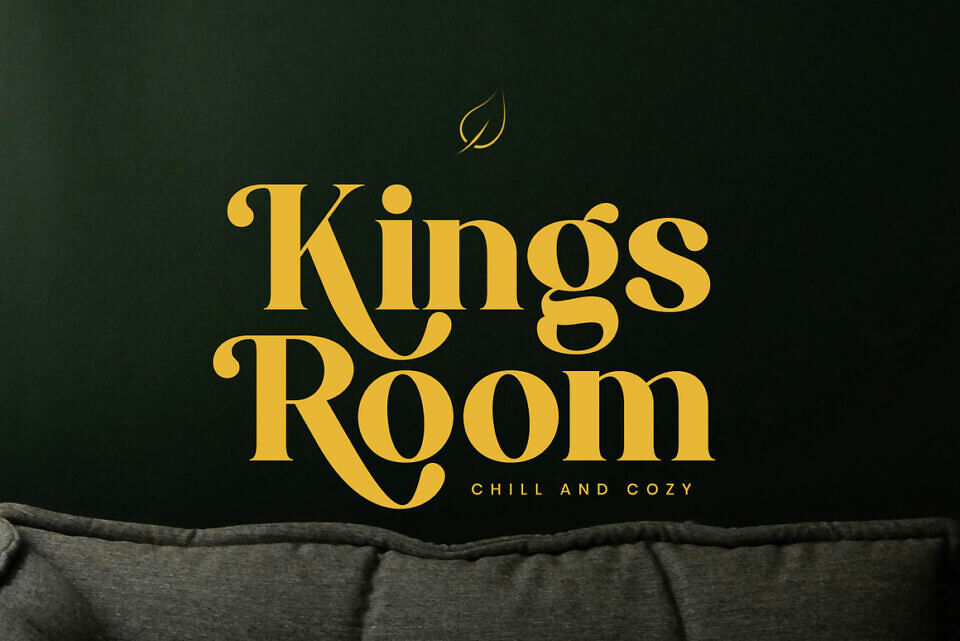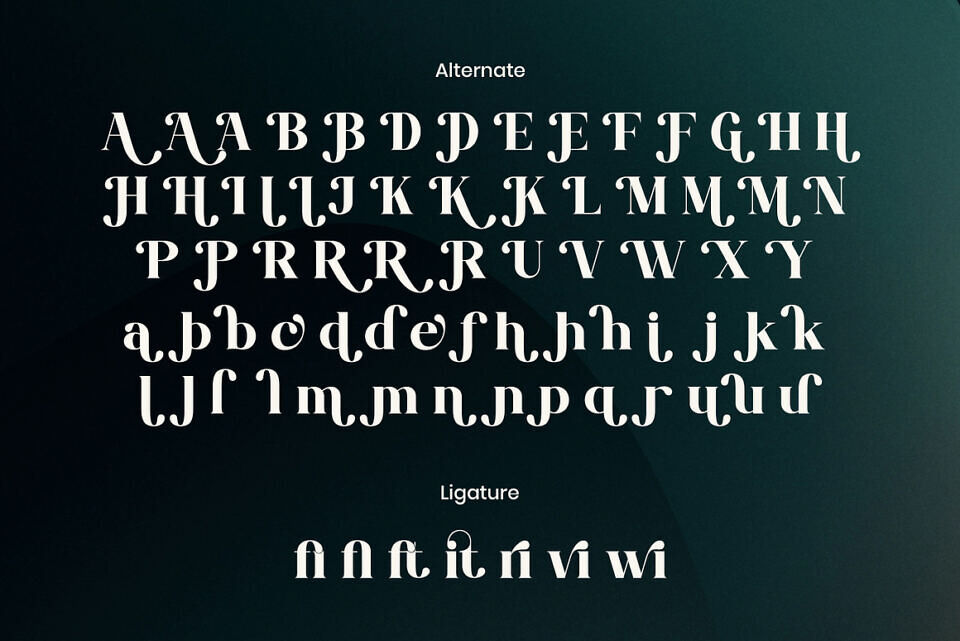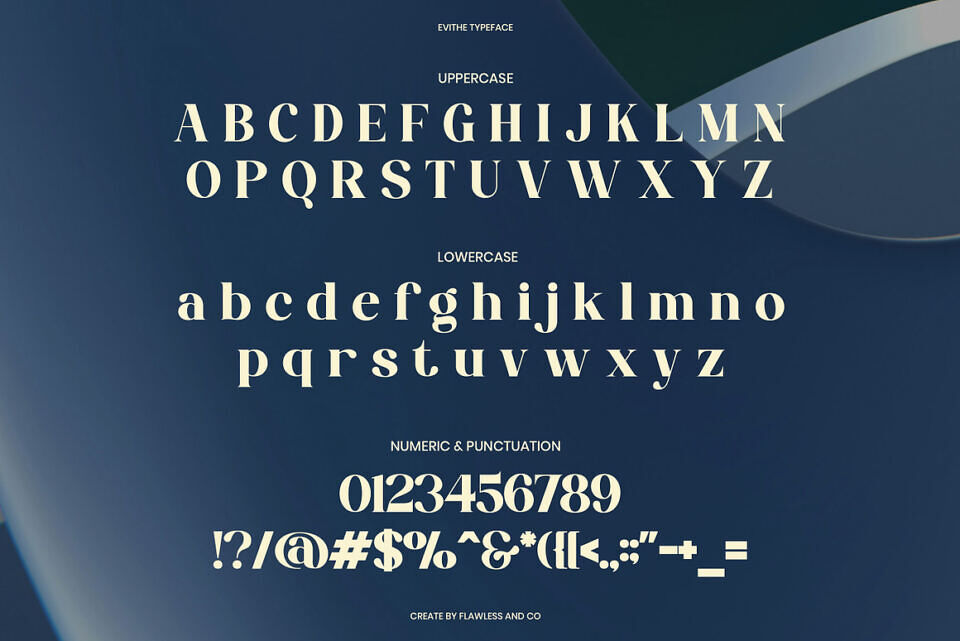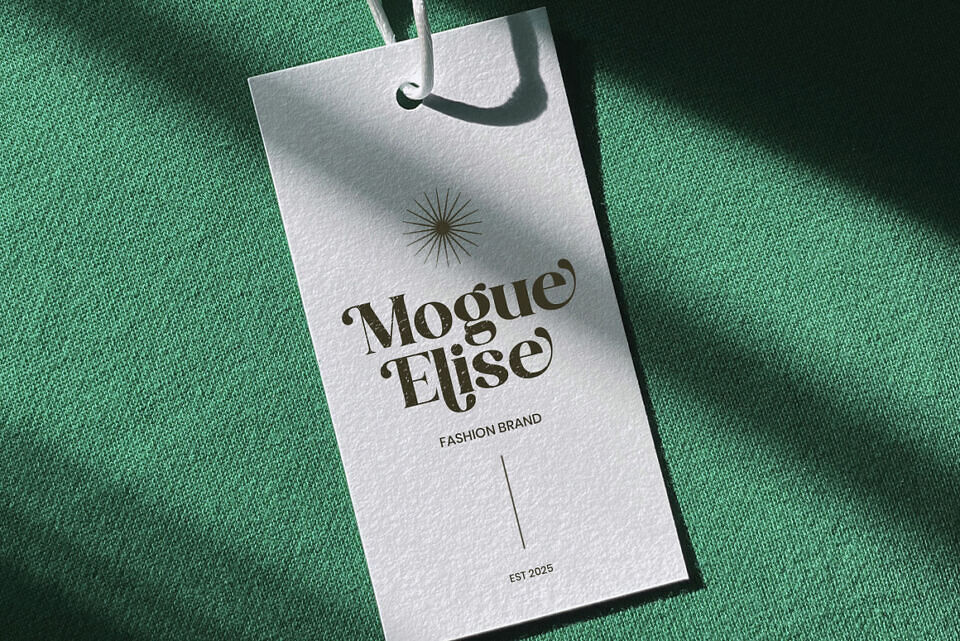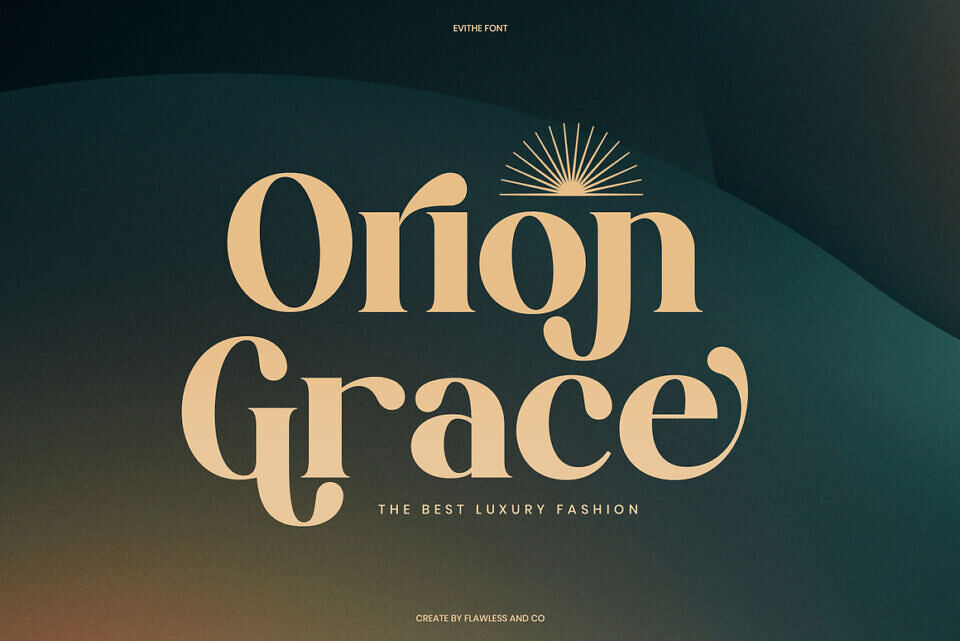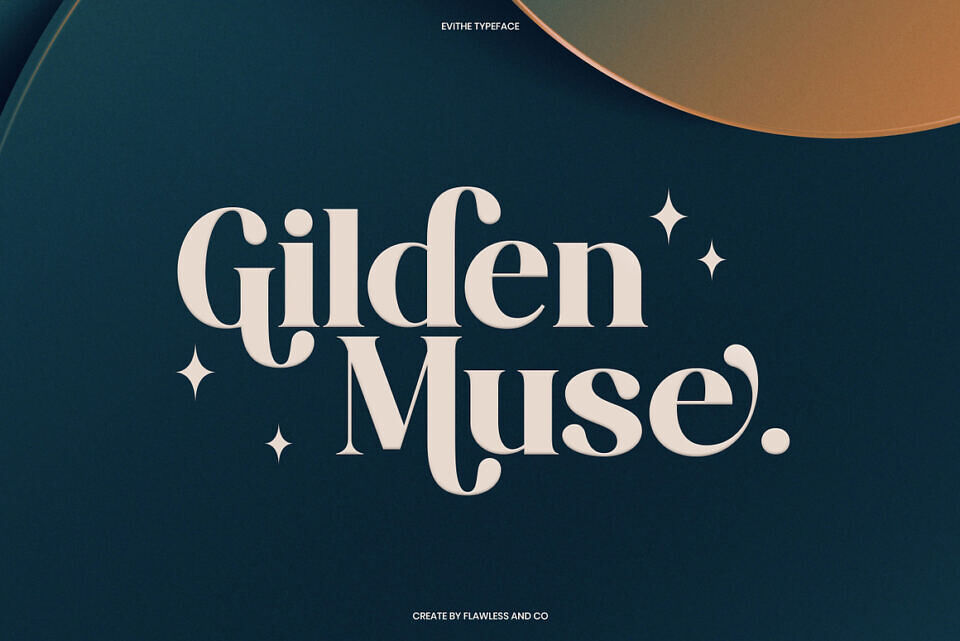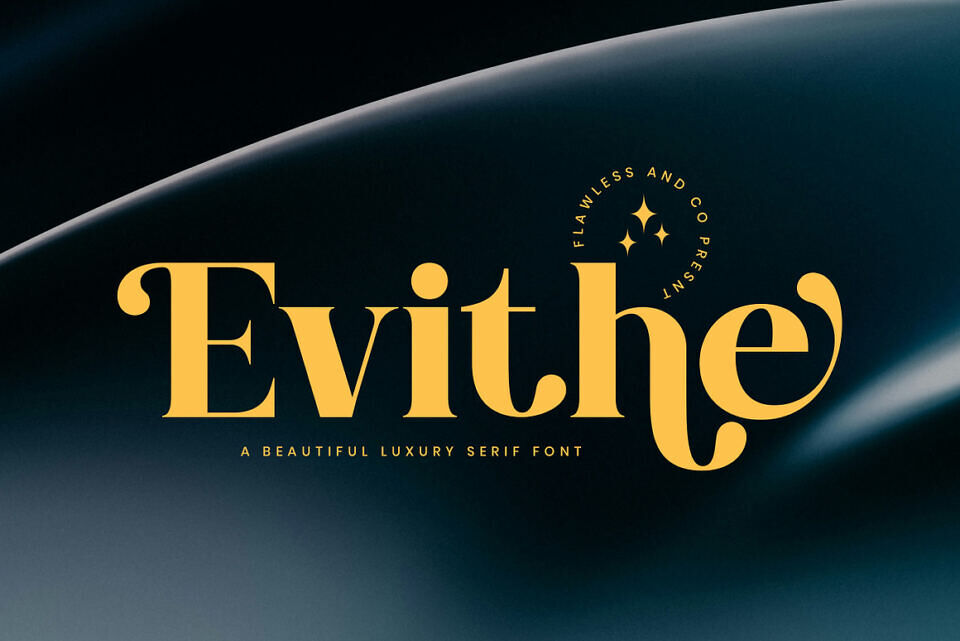
Evithe Font
Evithe is a stunning display serif font that embodies elegance and sophistication in every curve. Designed with luxurious flair and attention to detail, EVITHE blends timeless beauty with a modern sensibility, making it the perfect choice for those who seek to elevate their visual identity.
From upscale branding to high-end fashion editorials, EVITHE adds a touch of class and refinement that leaves a lasting impression. Its graceful serifs, stylish ligatures, and refined contrast make it an essential typeface for creators who demand both beauty and versatility.